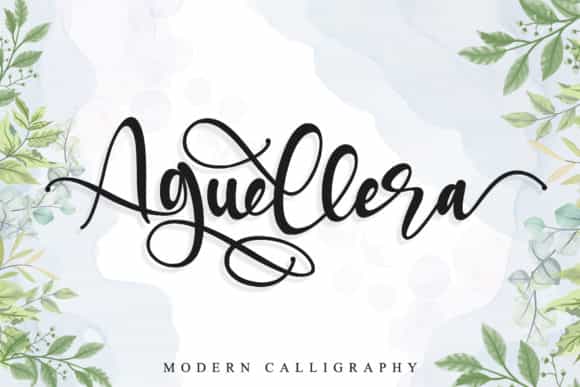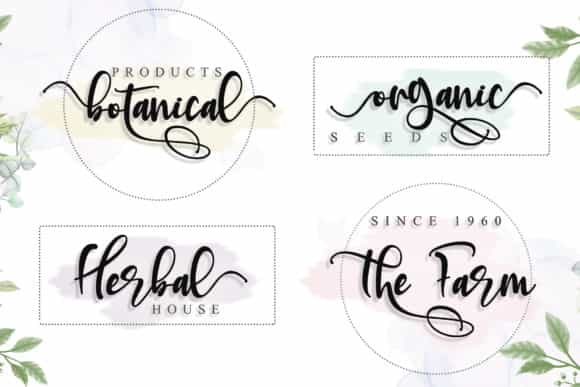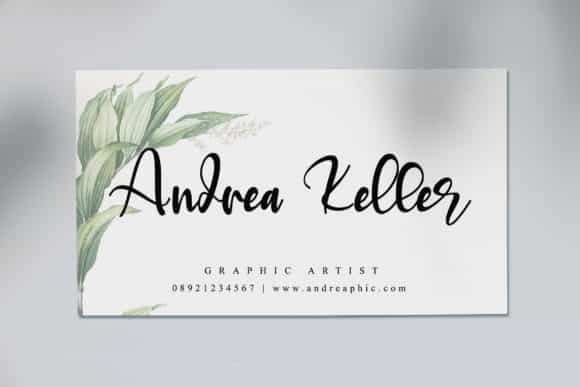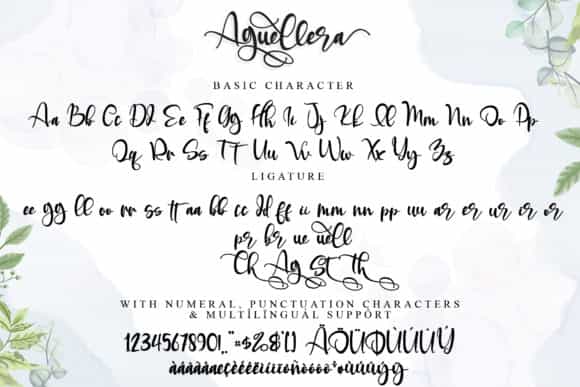
Aguellera is a modern calligraphy font. It’s handmade-script style makes it perfect for quotes and digital designs. Use this font for social media, instagram, logos, websites, blogs, home decor, wedding decor, invitations, branding, business cards… the list goes on!